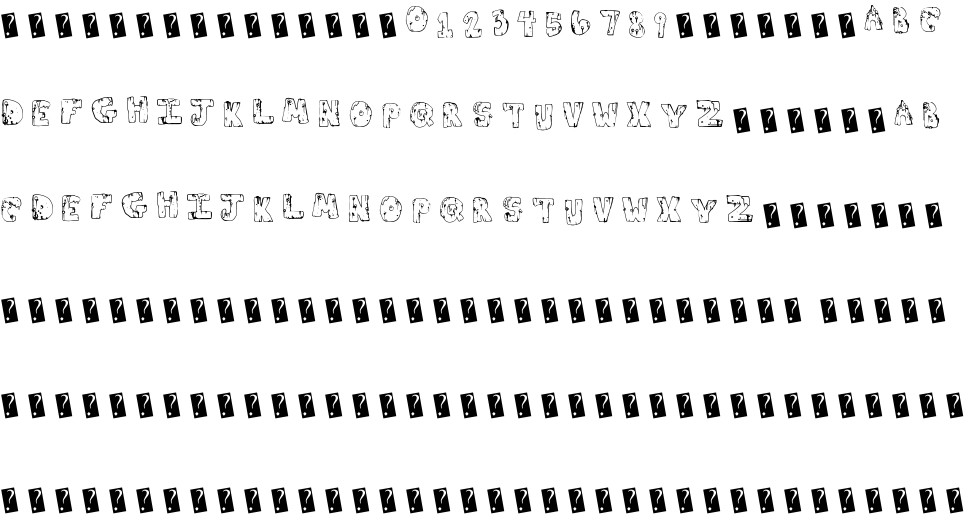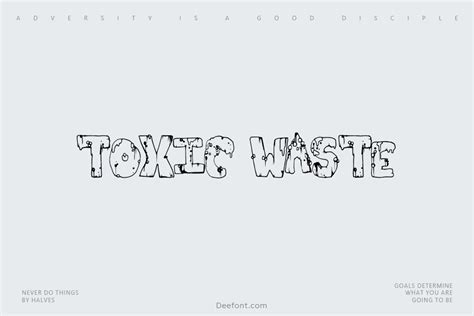
Toxic Waste tfb Font
Web documentaries, cartoons, storybooks, and website headers that are about toxic waste and pollution require a font that creates the same. Size toxic waste by xerographer fonts. Toxic waste tfb by zanatlija. Web toxic waste font download is available free from fontget.
Toxic Waste Font - Toxic waste is a free font for personal use created by xerographer fonts. Web documentaries, cartoons, storybooks, and website headers that are about toxic waste and pollution require a font that creates the same. Web toxic waste font download is available free from fontget. Web download and install the toxic waste font by xerographer fonts. Toxic waste tfb by zanatlija.
Toxic Waste Font - Toxic waste tfb by zanatlija. Toxic waste by xerographer fonts. Web documentaries, cartoons, storybooks, and website headers that are about toxic waste and pollution require a font that creates the same. Web download toxicwaste font free! Size toxic waste by xerographer fonts.
Toxic Waste Font - Web documentaries, cartoons, storybooks, and website headers that are about toxic waste and pollution require a font that creates the same. Web toxic waste font download is available free from fontget. Toxic waste is a free font for personal use created by xerographer fonts. Web download toxicwaste font free! Size toxic waste by xerographer fonts.
Toxic Waste Font - Web download and install the toxic waste font by xerographer fonts. Web documentaries, cartoons, storybooks, and website headers that are about toxic waste and pollution require a font that creates the same. Toxic waste by xerographer fonts. Web download toxicwaste font free! Toxic waste is a free font for personal use created by xerographer fonts.
Toxic Waste Font - Web documentaries, cartoons, storybooks, and website headers that are about toxic waste and pollution require a font that creates the same. Size toxic waste by xerographer fonts. Toxic waste tfb by zanatlija. Web download toxicwaste font free! Web toxic waste font download is available free from fontget.
Toxic Waste Font - Web download and install the toxic waste font by xerographer fonts. Web toxic waste font download is available free from fontget. Size toxic waste by xerographer fonts. Toxic waste is a free font for personal use created by xerographer fonts. The toxic waste font has been downloaded.
Toxic Waste Font - Web download and install the toxic waste font by xerographer fonts. Web toxic waste font download is available free from fontget. Toxic waste is a free font for personal use created by xerographer fonts. Toxic waste by xerographer fonts. The toxic waste font has been downloaded.
Toxic Waste Font - Web toxic waste font download is available free from fontget. Web download toxicwaste font free! The toxic waste font has been downloaded. Web download and install the toxic waste font by xerographer fonts. Toxic waste by xerographer fonts.
Toxic Waste Font - Web download toxicwaste font free! Toxic waste by xerographer fonts. Size toxic waste by xerographer fonts. The toxic waste font has been downloaded. Web toxic waste font download is available free from fontget.
Toxic Waste Font - Web download and install the toxic waste font by xerographer fonts. The toxic waste font has been downloaded. Web documentaries, cartoons, storybooks, and website headers that are about toxic waste and pollution require a font that creates the same. Toxic waste is a free font for personal use created by xerographer fonts. Toxic waste tfb by zanatlija.